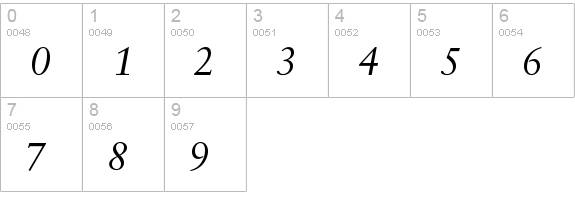
Classical Garamond Italic is a distinctive, italic variant in the Classical typeface family \xE2\x80\x94 well suited to design and typography projects.
Classical Garamond Italic font exudes timeless elegance and sophistication, making it a classic choice for any design project. The graceful slant of the italic style adds a touch of refinement to text, perfect for conveying a sense of tradition and prestige. The delicate serifs and graceful curves of Classical Garamond Italic create a harmonious flow of text, enhancing readability and visual appeal. What's even better is that this exquisite font is freely available for download at FontsMarket.com. Whether you're working on a formal invitation, a professional presentation, or a stylish branding project, Classical Garamond Italic is sure to elevate your design with its charm and sophistication. Embrace the beauty of classical typography with this timeless font, now just a click away for your creative endeavors.